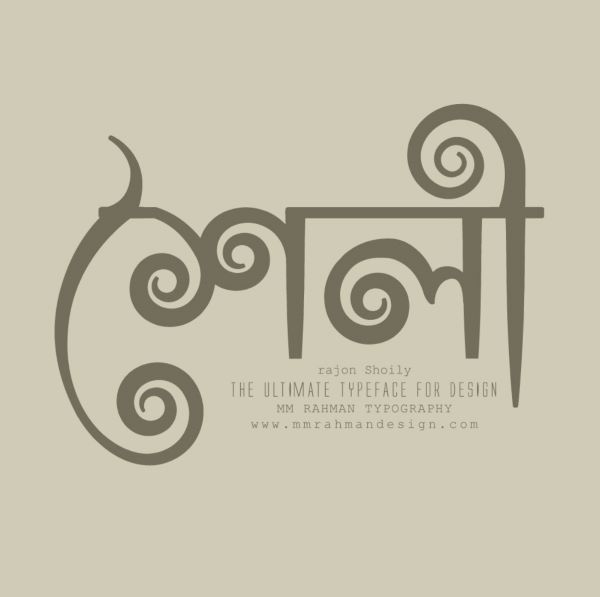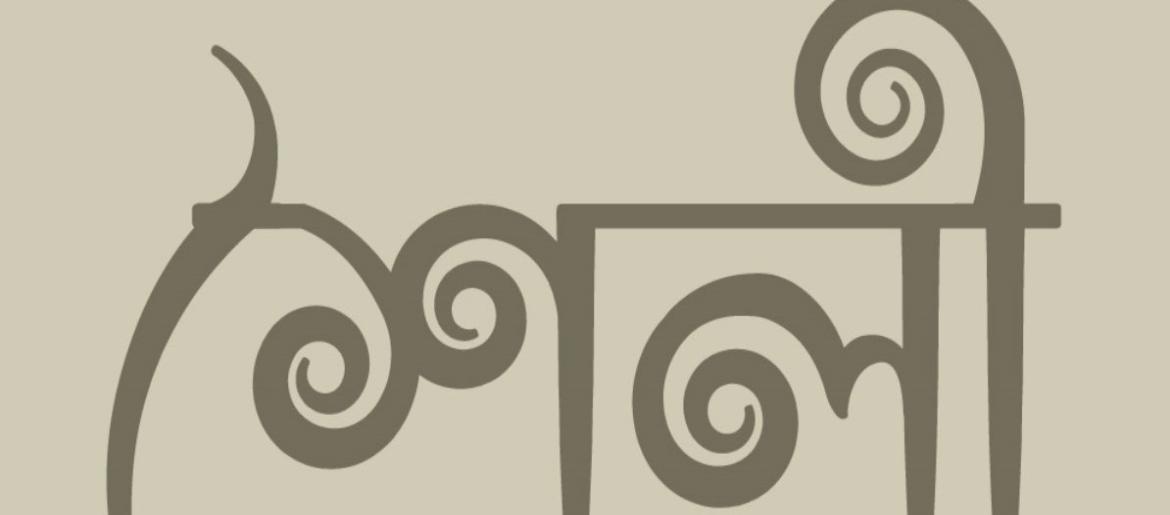
Rajon Shoily Font
Rajon Shoily by m mohibubur rahman is a Bangla display typeface born from a deeply personal commitment to enriching the Bengali script in the digital age. At a time when Bengali — one of the world’s most widely spoken languages — remained underserved by quality type design, rahman set out to fill that gap. The result is a graceful, expressive display typeface that brings cultural pride and typographic craft together in a single, freely available package. A meaningful contribution to designers working in and with the Bengali script.